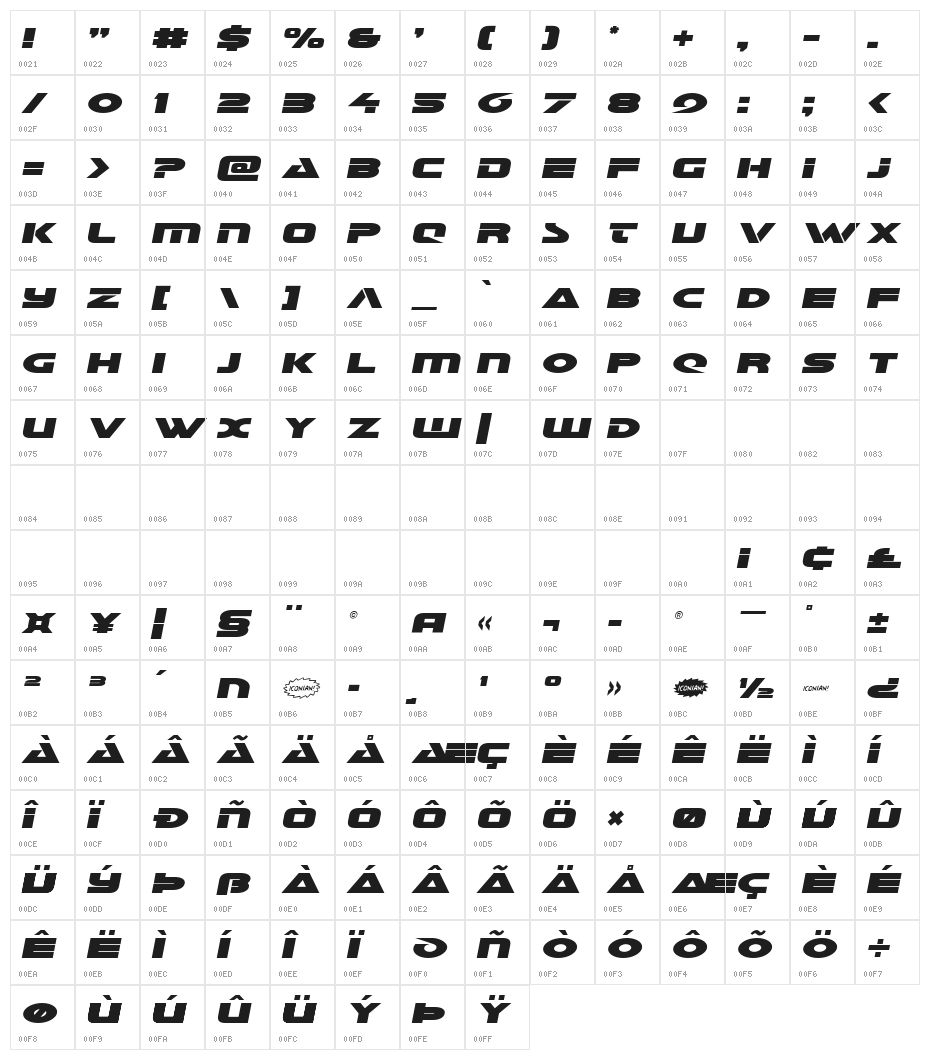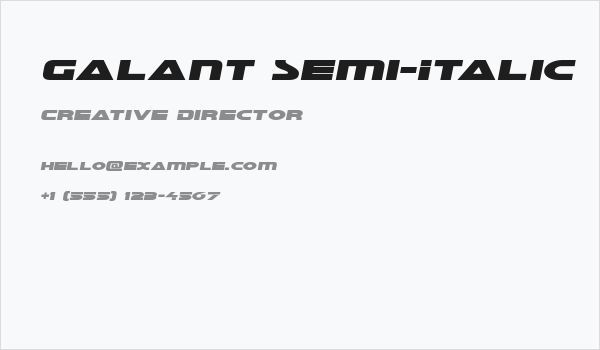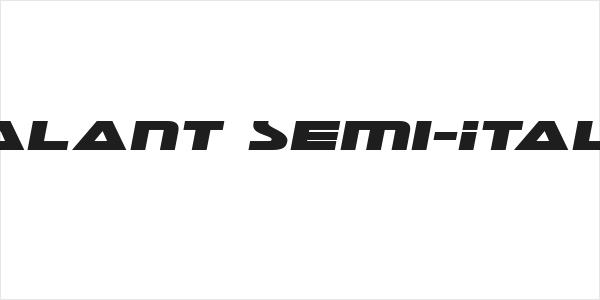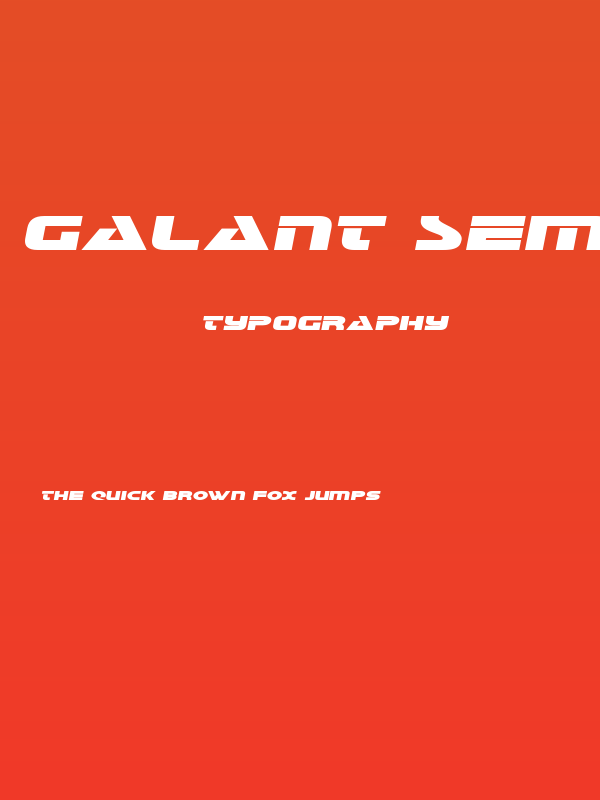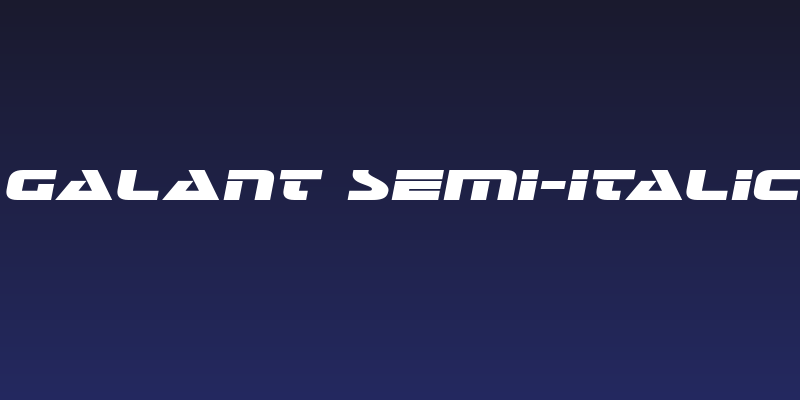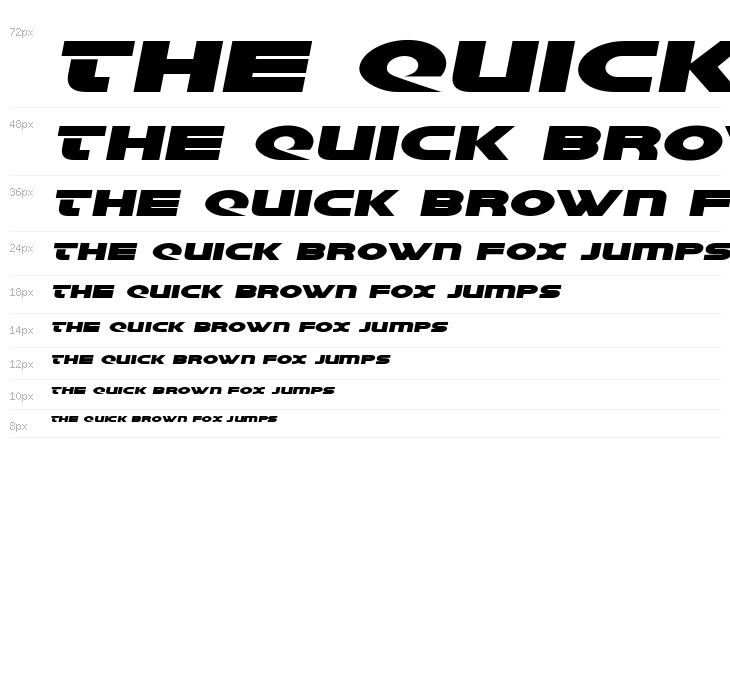
Galant Semi-Italic Font
Galant Semi-Italic Description
This font features a bold and dynamic style with a semi-italic slant, giving it a sense of motion and energy. The characters are wide and have a futuristic appearance, with sharp angles and clean lines. The uppercase and lowercase letters maintain a consistent design, enhancing readability while retaining a unique flair. The numbers and special characters are crafted to match the overall aesthetic, making them suitable for a variety of design applications. The font's boldness and slant make it ideal for attention-grabbing headlines and logos.
| Proposed Projects | Ideal for sports branding, tech logos, dynamic posters, and modern web design. |